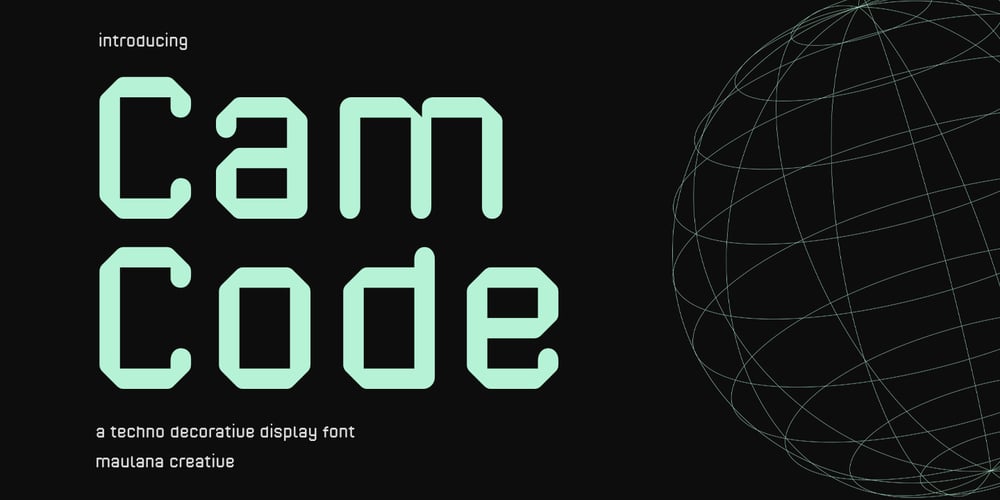
MC Camcode Font Family was designed by Gilang Maulana and published by Maulana Creative. MC Camcode contains 1 styles and family package options. Camcode is a semi Bitmap style with round edges Display sans font. Regular stroke, fun character with a bit of ligatures and alternates. To give you an extra creative work. Camcode font support multilingual more than 100+ language. This font is good for logo design, Social media, Movie Titles, Books Titles, a short text even a long text letter and good for your secondary text font with script or serif. Make a stunning work with Camcode font.Cheers, Maulana Creative